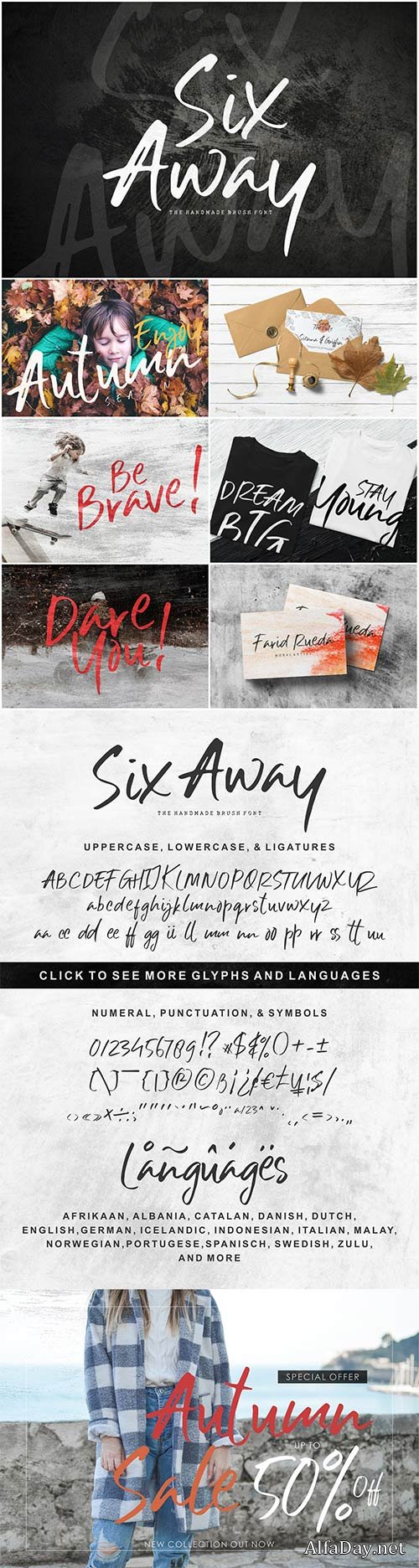
CM - Six Away-The Handmade Brush Font 2994903
This font has its own style and can be assembled into a natural word. Six Away is made with a quick stroke of the brush pen, so that it looks original and can be used for all your project needs.